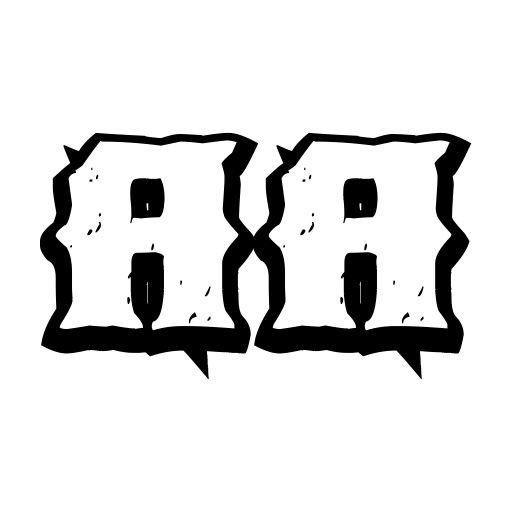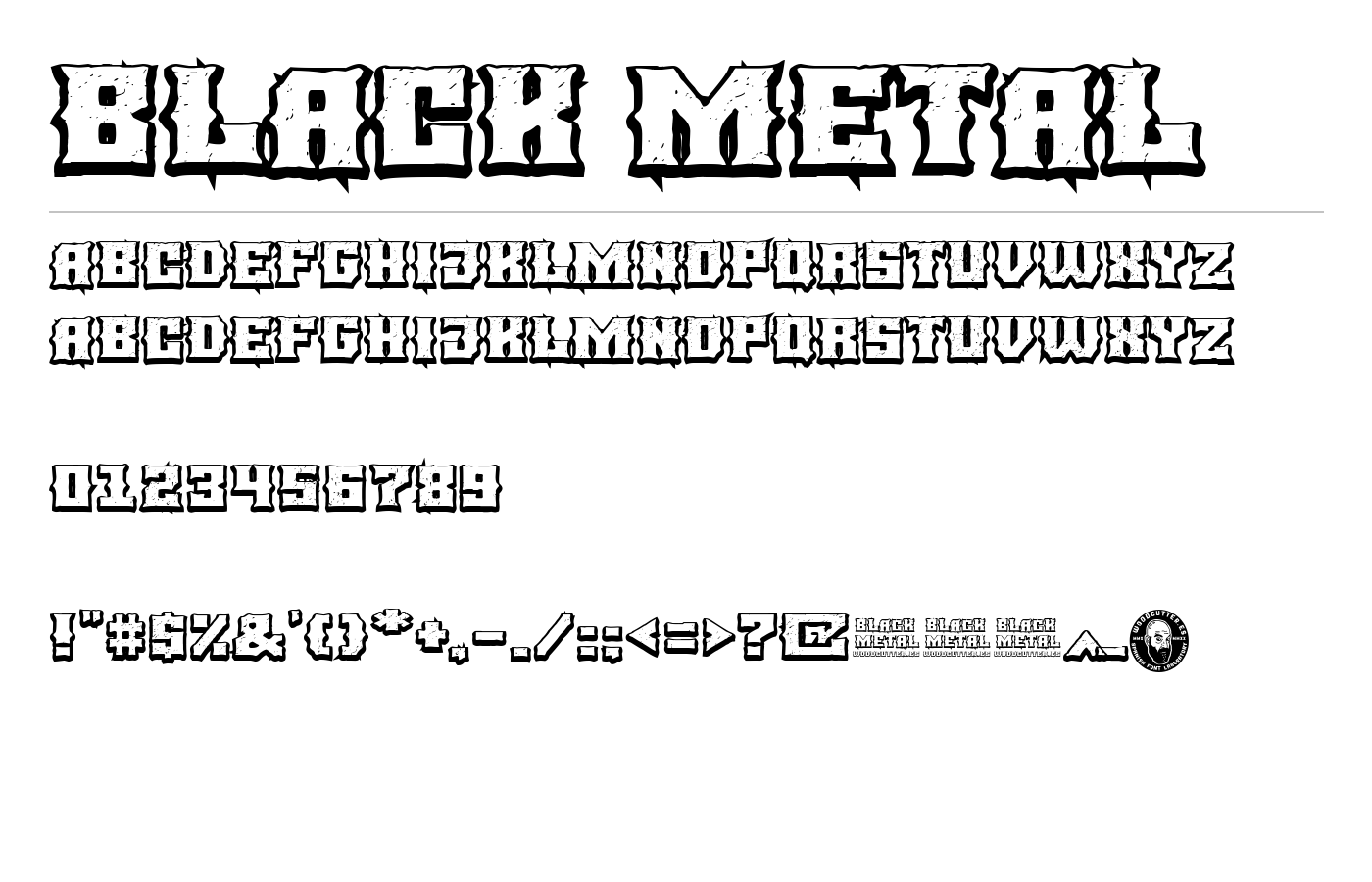
BLACK METAL is a bold, decorative display font with a heavy, rugged serif style that features sharp, jagged edges giving it a gritty, distressed look. Its strong contrast, wide letterforms, and uppercase-only characters make it ideal for eye-catching headlines, logos, and designs that want to convey a rebellious, edgy, or vintage heavy metal vibe. This font works best for music branding, posters, and any project needing a bold, intense visual impact.
BLACK METAL Font
About BLACK METAL Font